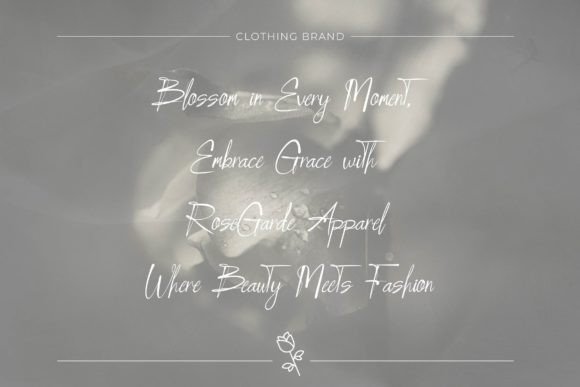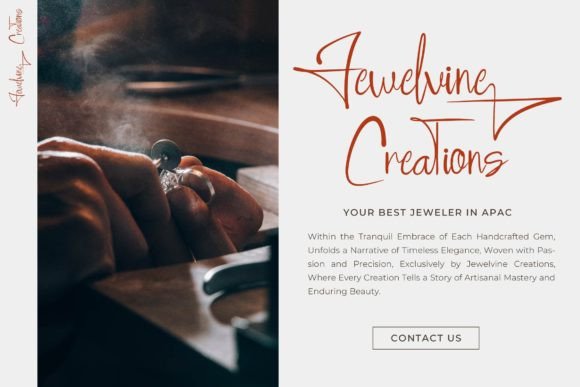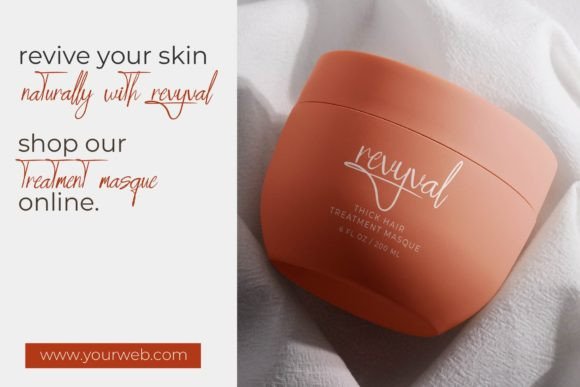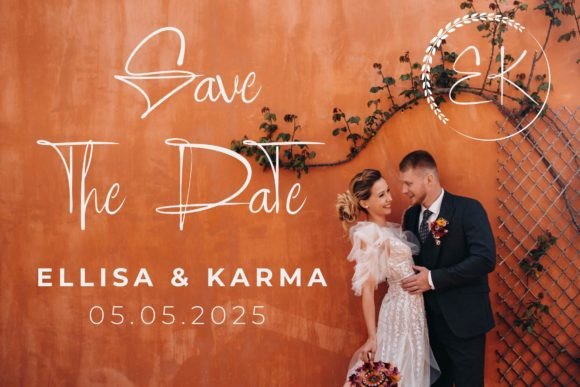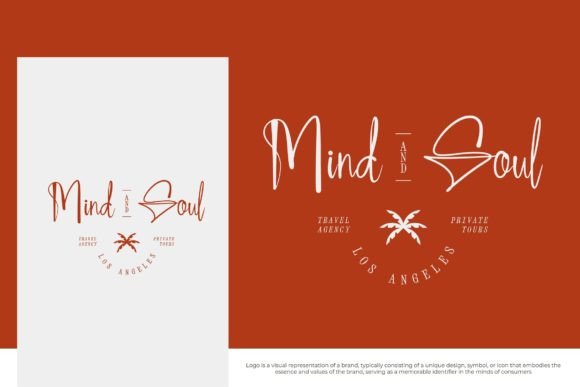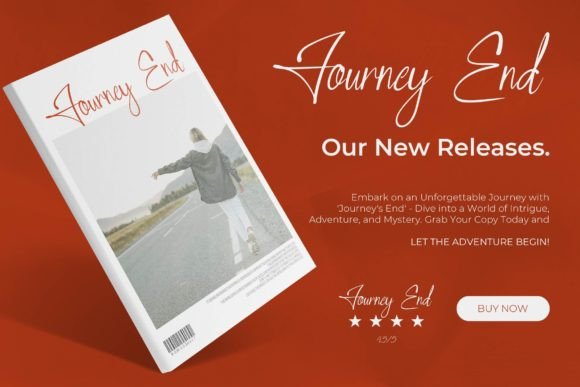
Benyoritha Font: Elevate Your Creative Projects with a Touch of Elegance
In the world of typography, few fonts manage to capture the essence of warmth and friendliness as effectively as Benyoritha. This beautiful handwritten script is a gem for designers, crafters, and anyone looking to add a personal touch to their projects. With its flowing letters and elegant curves, Benyoritha is perfect for a variety of applications, from personal notes and invitations to creative endeavors that demand a unique and inviting style.
The Unique Charm of Benyoritha
Benyoritha’s charm lies in its ability to convey emotion and personality through its fluid strokes and graceful letterforms. Each letter is meticulously crafted to contribute to the overall harmony of the word, making it not just a means of communication but a form of art. The font’s design ensures that it stands out in a crowd, offering a distinctive look that can elevate any project it’s used in.
Applications of Benyoritha Font
The versatility of Benyoritha makes it suitable for a wide range of projects. Here are some of the most popular applications:
- Personal Notes and Letters: Add a touch of elegance and warmth to your correspondence.
- Invitations: Whether it’s a wedding, birthday, or any other celebration, Benyoritha can make your invitations truly special.
- Creative Projects: From scrapbooking and journaling to crafting and DIY projects, Benyoritha can add a unique flair.
- Branding and Marketing: For businesses looking to establish a friendly and approachable brand voice, Benyoritha can be a great choice.
Why Choose Benyoritha?
There are several reasons why Benyoritha stands out from the myriad of fonts available:
- Warmth and Friendliness: It offers a unique warmth and friendliness that digital fonts often lack.
- Elegance and Sophistication: Despite its casual feel, Benyoritha maintains an air of elegance, making it suitable for more formal projects.
- Versatility: It can be used in a variety of contexts, from personal to professional.
- Easy to Read: The clarity of Benyoritha ensures that your message is conveyed effectively without sacrificing style.
Tips for Using Benyoritha Effectively
To make the most of Benyoritha, consider the following tips:
- Pair with Complementary Fonts: Use Benyoritha in conjunction with simpler fonts to create visual interest.
- Adjust Letter Spacing: Experiment with kerning to enhance the flow and readability of your text.
- Limit Text Blocks: For better impact, use Benyoritha in shorter text blocks or headings.
- Play with Colors: While black is classic, experimenting with colors can add a modern twist to your project.
Benyoritha is more than just a font; it’s a way to infuse your projects with a sense of warmth, elegance, and personality. Whether you’re a designer looking for a unique touch or a crafter seeking to add a personal feel to your work, Benyoritha is an excellent choice. Its flowing letters and elegant curves not only make it perfect for personal notes and invitations but also for any creative project that demands a touch of sophistication and friendliness. With Benyoritha, you can transform your ideas into visually appealing and emotionally resonant creations.
Incorporating Benyoritha into your design repertoire can open up new possibilities for creative expression. So, why settle for ordinary when you can make your projects extraordinary with the charming elegance of Benyoritha?